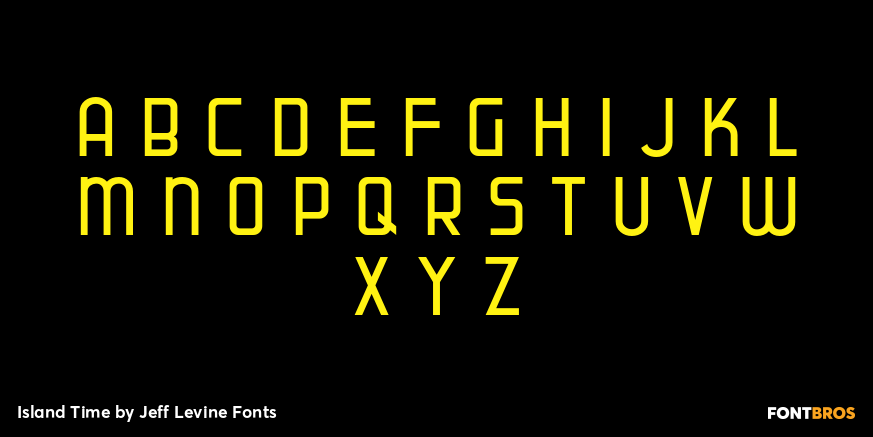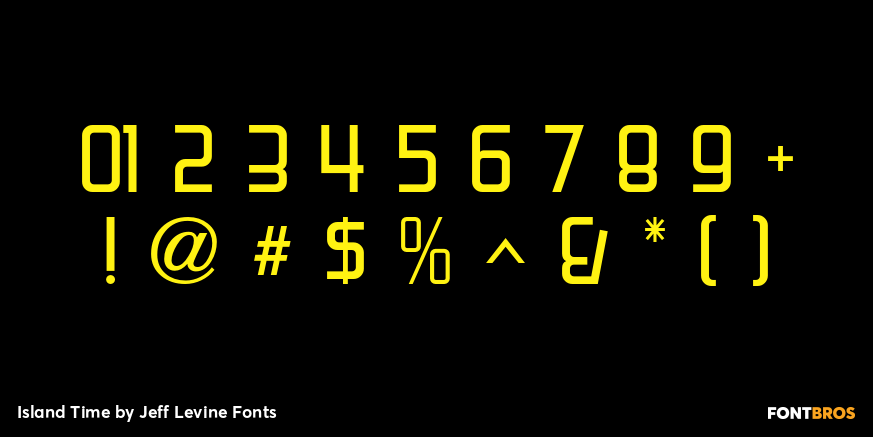
Island Time
Island Time JNL is based on the hand-lettered title from a piece of 1940s sheet music called 'An Island Melody”. This Art Deco typeface is perfect for projects where a clean yet attractive headline font is needed.
The font's name is based on the euphamism popular amongst Caribbean Islanders that when someone is excessively late for an appointment, date or event they are running on "island time"